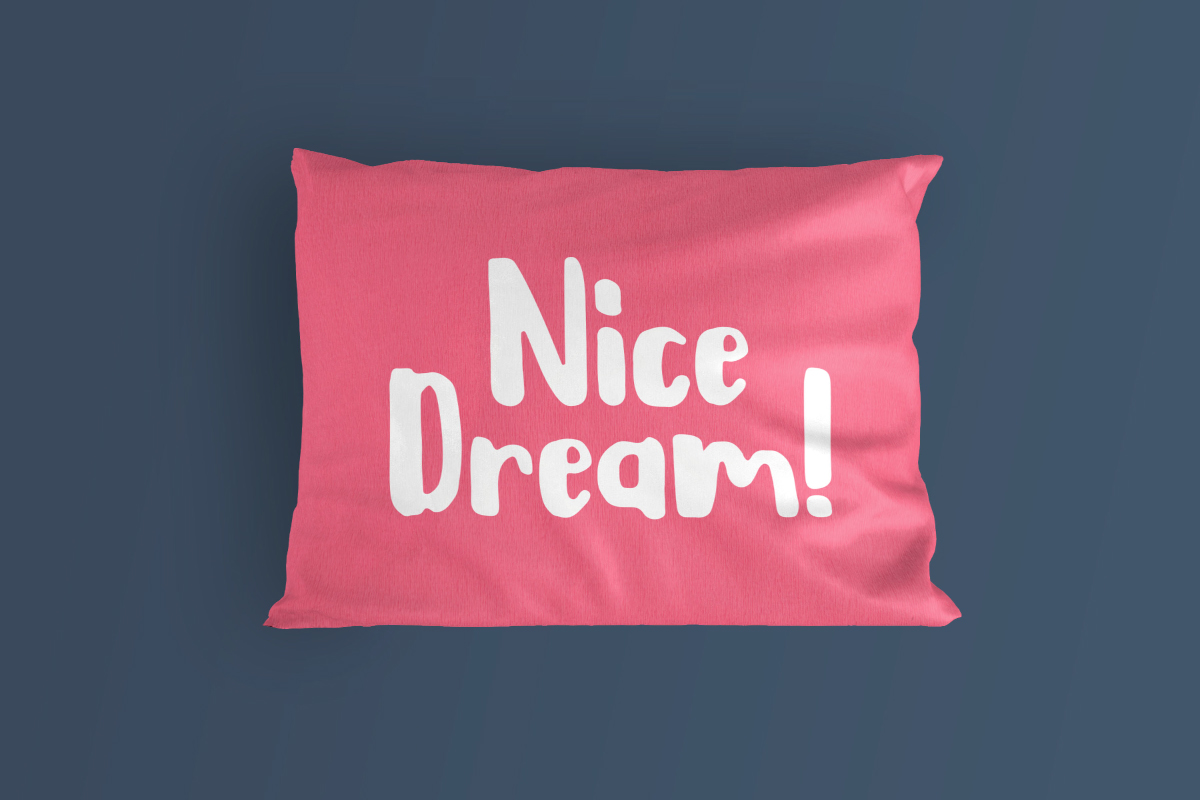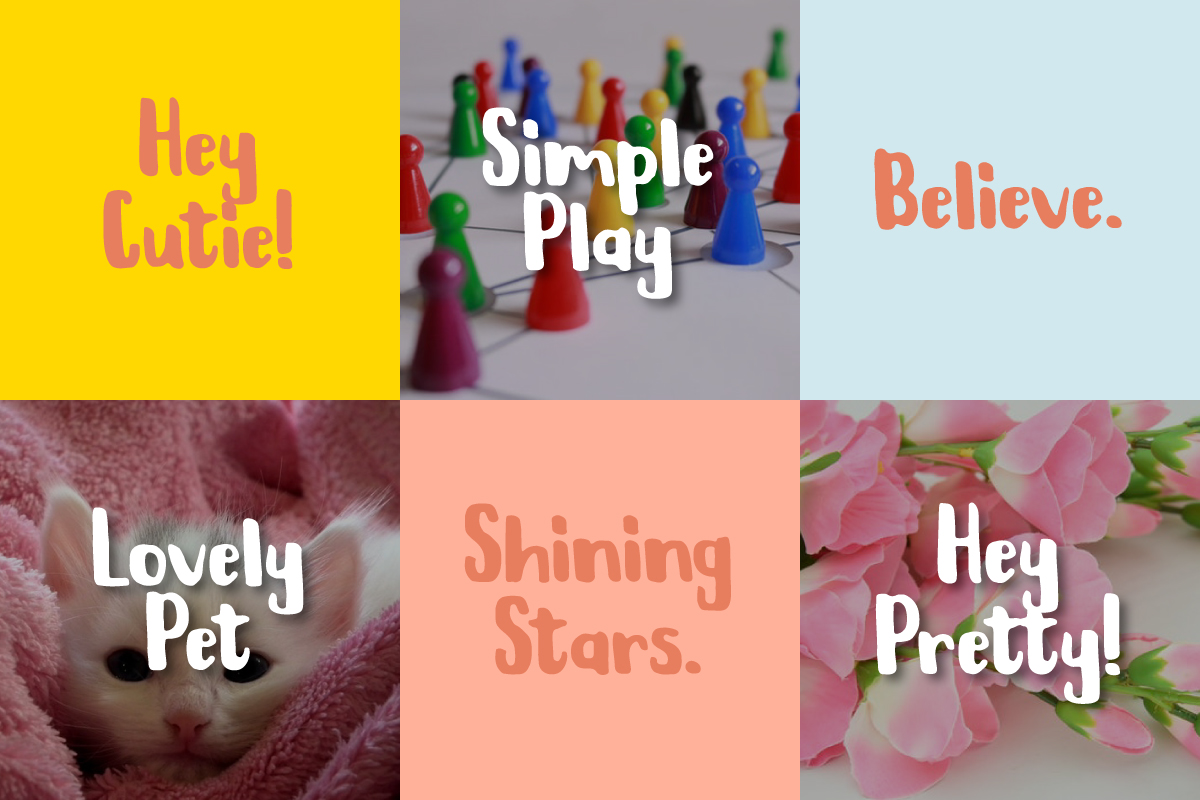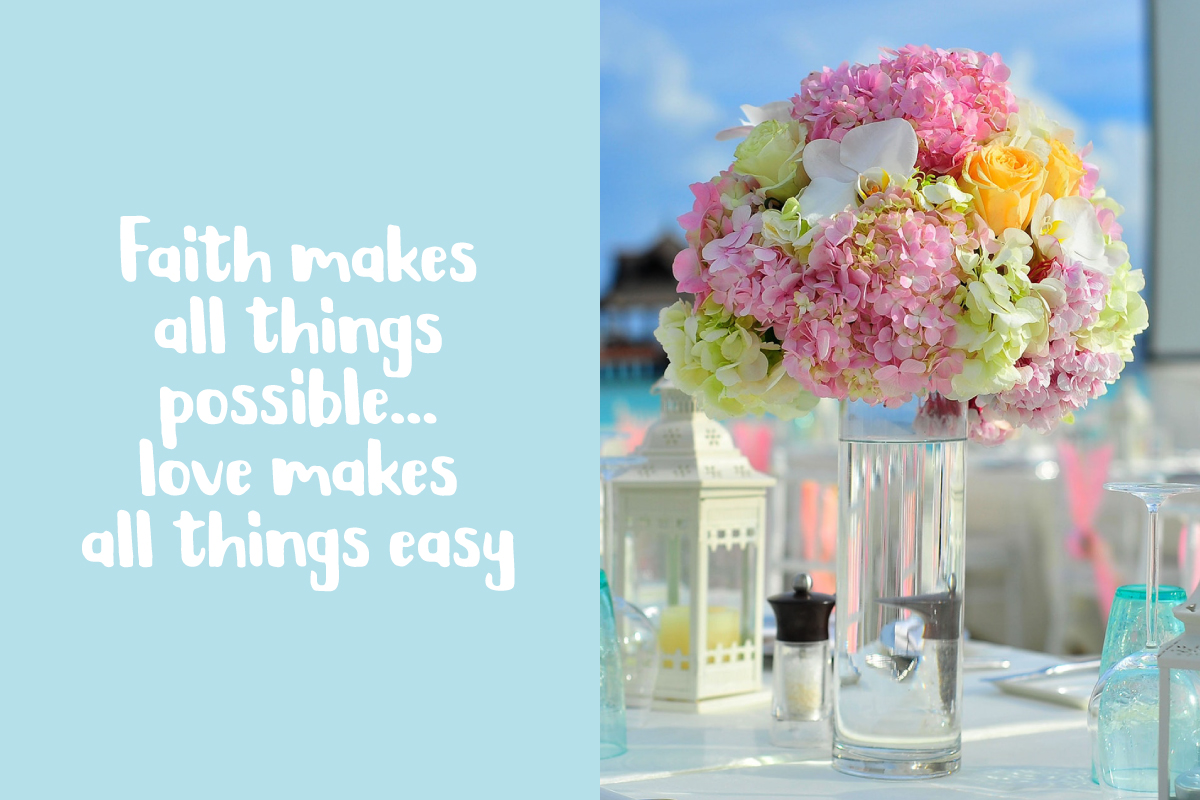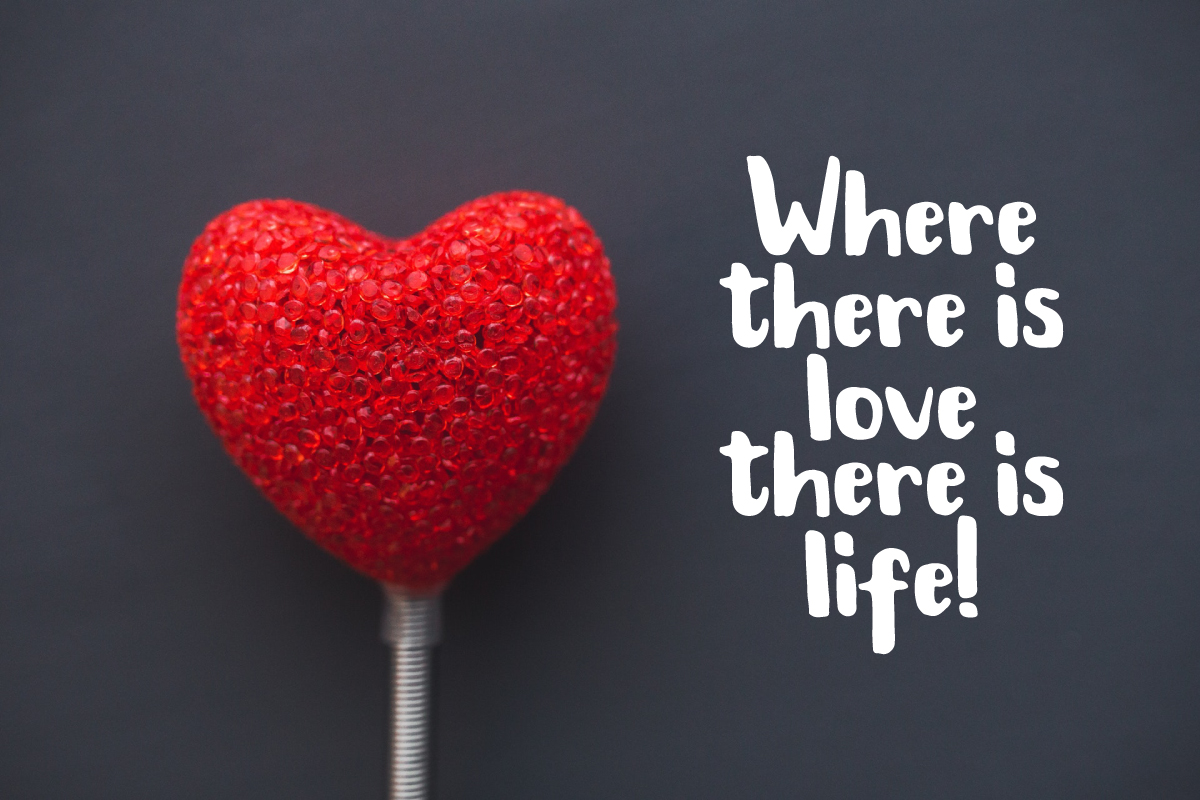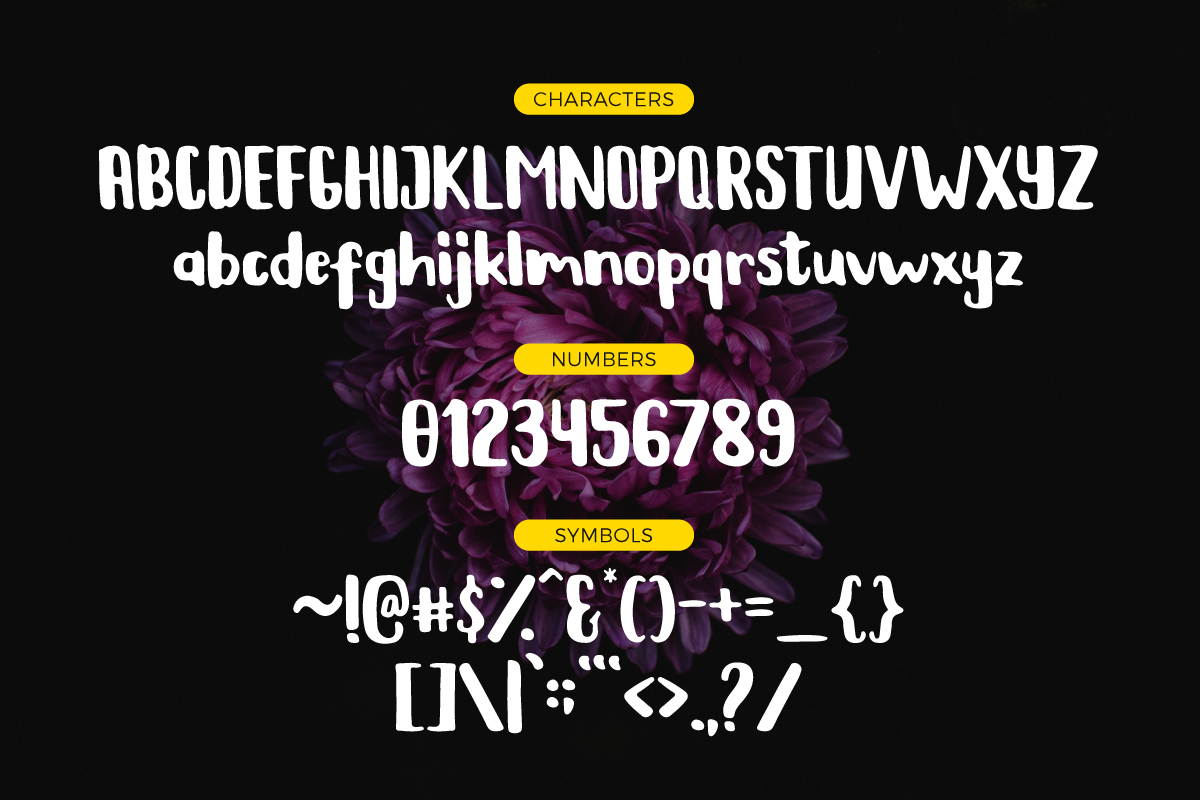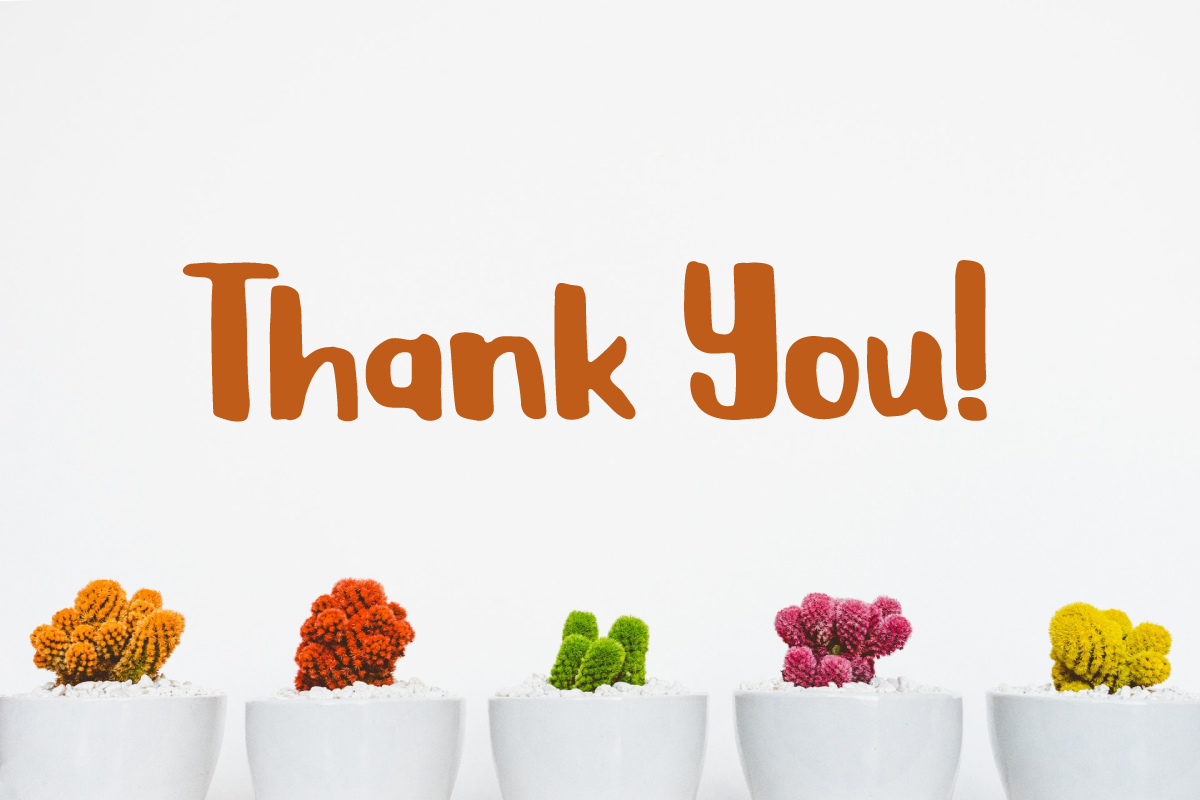
Kaliber Font
About Kaliber Font
Kaliber is a contemporary hand-made brush type. It looks stylish. It was painted on paper and carefully digitized and optimized after.